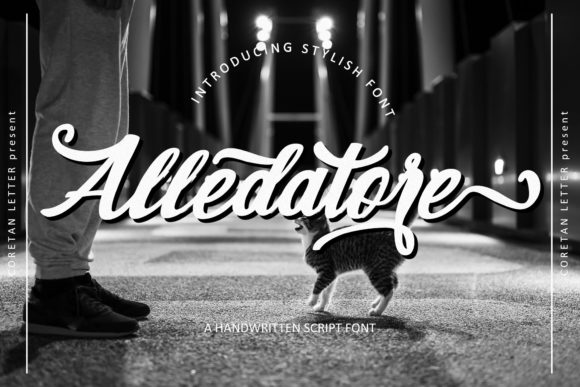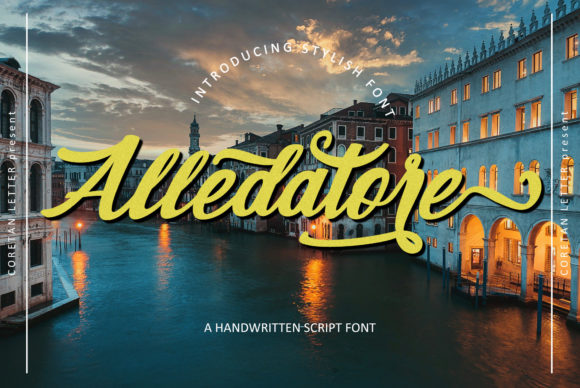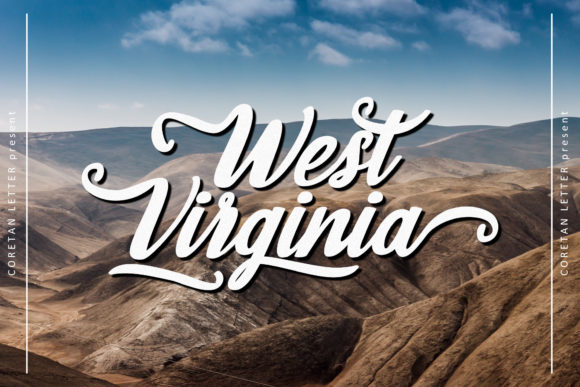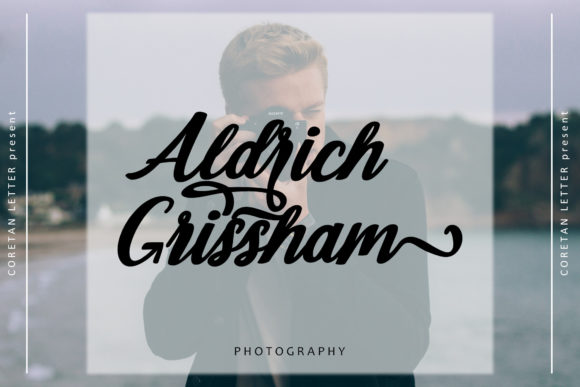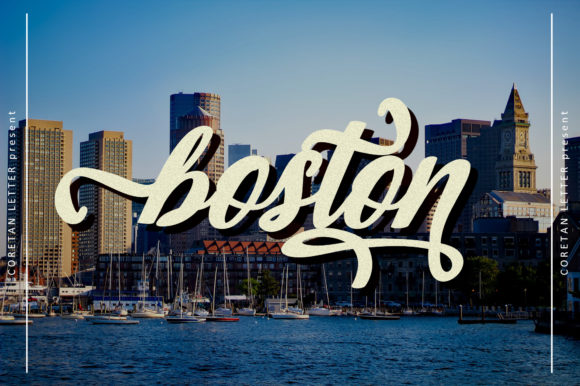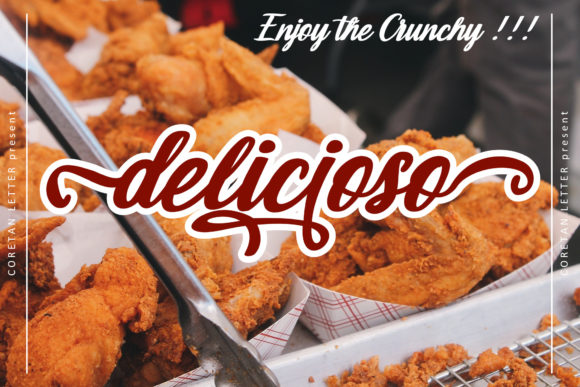
The Magical World of Alledatore Font: A Designer’s Delight
I’ll never forget the moment I stumbled upon Alledatore Font while working on a project for a client who wanted a elegant and sophisticated look. I had spent hours scouring the internet for the perfect script font, but nothing seemed quite right. That was until I discovered Alledatore – a magical script font that instantly captured my heart. In this article, I’ll share my love for this incredible font, its features, and how to make the most of it in your designs.
A Personal Review: What I Love About Alledatore
So, what makes Alledatore so special? Here are a few things that I absolutely love about this font:
• ✨ Elegant and Versatile Style: Alledatore boasts an incredibly versatile style that can be used for a wide range of design projects, from wedding invitations to branding and advertising.
• ✅ PUA Encoding: This font is PUA encoded, which means you can access all of the glyphs and swashes with ease, giving you endless creative possibilities.
• 💫 Beautiful Swashes and Glyphs: The font comes with a range of beautiful swashes and glyphs that can add a touch of magic to your designs.
While Alledatore is an amazing font, there are a few small quirks to be aware of:
• 🤔 Learning Curve: With so many glyphs and swashes available, it can take some time to get familiar with the font and learn how to use it to its full potential.
The Backstory of Alledatore
Alledatore was created with the goal of crafting a font that would bring a touch of magic to designs. The designer wanted to create a font that was both elegant and versatile, with a range of glyphs and swashes to make it truly special. The result is a font that’s perfect for designers, crafters, and creative hobbyists who want to add a bit of whimsy to their designs.
What is Alledatore? Alledatore is a magical script font carefully created with a touch of elegance.
Is Alledatore PUA encoded? Yes, Alledatore is PUA encoded, which means you can access all of the glyphs and swashes with ease.
Is Alledatore easy to use? Yes, Alledatore is relatively easy to use, but it may take some time to get familiar with the font and learn how to use it to its full potential.